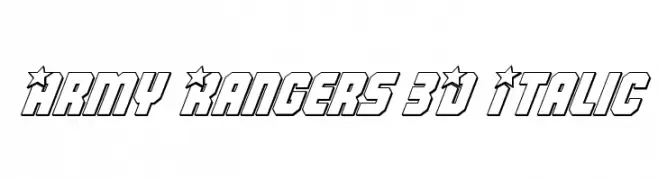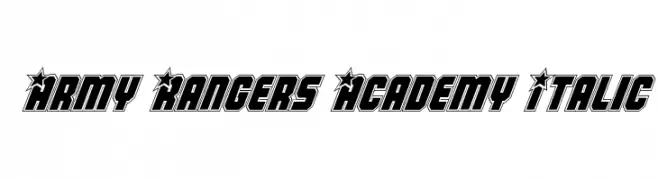
A bold, 3D italic font with star motifs and strong geometric shapes.
A bold, 3D military-inspired font with star-adorned uppercase letters.
A bold, italic font with angular design and star motifs, offering a dynamic and energetic appearance.
A bold, military-inspired font with star motifs and strong outlines.